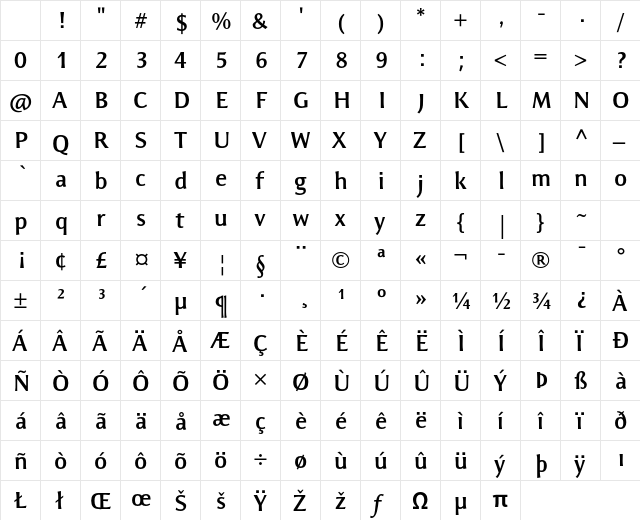
Complete Resavska Sans ITC Std Bold glyph index. Displaying only characters natively supported by Resavska Sans ITC Std Bold font.
Resavska Sans ITC Std is a composed and adaptable typeface that performs quietly and consistently across a wide range of design contexts. Its bold stroke weight gives it real presence on the page.